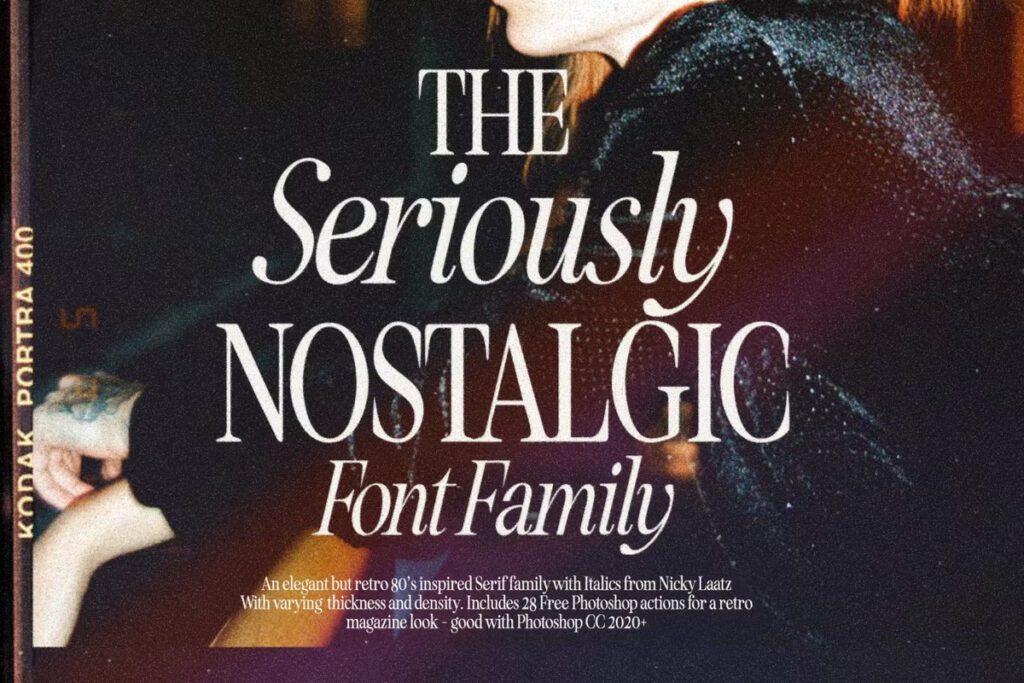
Seriously Nostalgic Serif: A Blast from the Past for Your Designs
Bring the bold, glamorous vibes of the 80s back into your designs with Seriously Nostalgic Serif. This typeface is a classy serif font inspired by the vintage style of 1980s magazines. If you’re looking to add retro flair with a modern twist to your creative projects, this font is the perfect choice.
What’s Included in the Seriously Nostalgic Font Family?
The Seriously Nostalgic Serif font family offers a range of versions, from Ultra Condensed to Regular styles. It even features italic variants for added sophistication. Here’s a glimpse of the versatile fonts you’ll get:
Seriously Nostalgic Regular
Seriously Nostalgic Italic
Seriously Nostalgic Condensed
Seriously Nostalgic Semi Condensed
Seriously Nostalgic Ultra Condensed
Each version allows you to mix and match styles for eye-catching effects that are sure to stand out in any design. Whether you’re working on branding, magazine layouts, posters, or headlines, this font has the flexibility to create striking visuals with retro charm.
Design Tips for Seriously Nostalgic
All Caps for Maximum Impact: Mix all-caps with condensed versions to create a strong contrast and bold impact.
Letter Spacing: For larger titles, tighten the letter spacing to enhance the boldness of your typography. For smaller body text, loosen the spacing for better legibility.
Perfect for Various Design Projects
Whether you’re a fan of nostalgic aesthetics or just need something bold and stylish for your next project, Seriously Nostalgic Serif will not disappoint. Use it for:
Editorial Design: Perfect for magazine layouts with a retro feel.
Branding: Give your logo or brand a vintage yet timeless edge.
Posters and Headlines: Create striking posters and headlines that stand out with this bold typeface.
Web Design: Make your website pop with bold, nostalgic typography.
Retro Meets Modern Elegance
With multiple condensed forms and italic versions, this font is ideal for creating retro-modern designs. The typeface requires no special software, making it accessible for all creatives.